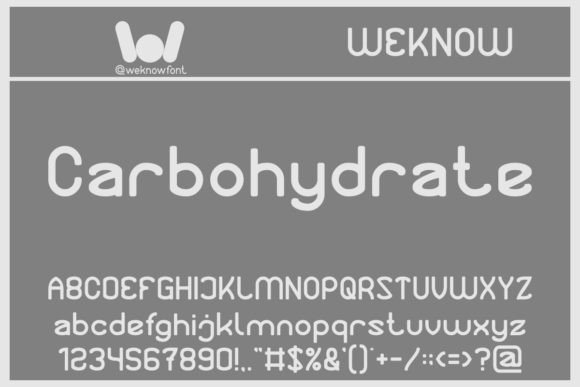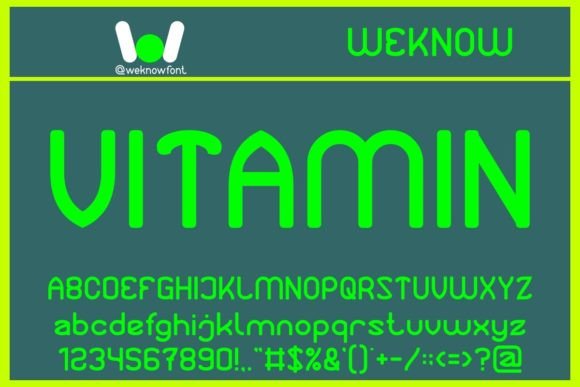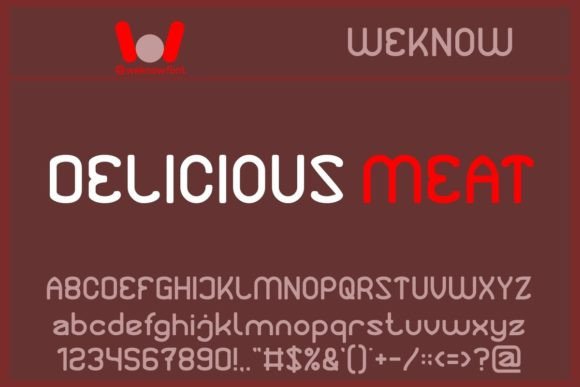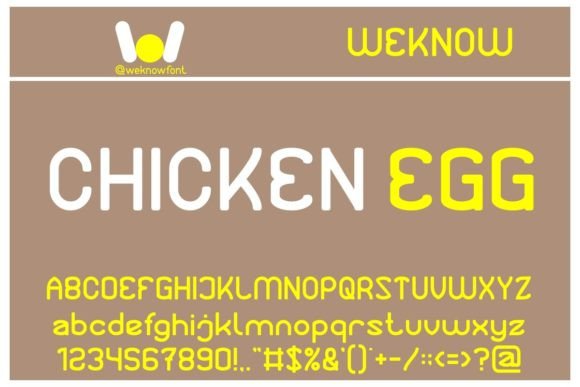
Introduction to Protein Font Font
Fonts play a crucial role in design, and the Protein Font font is a typeface that brings both character and versatility to any project. Whether you’re working on a branding project, a website, or a print design, the Protein Font font offers a unique style that can elevate your work.
Protein is a basic sans serif font suitable for a logo, logotype, headline, corporate identity, brand identity, apparel industry, poster, music, movie, game, magazine, book, comic, cartoon, YouTube, Instagram, website, or any of your creative design projects.
Protein is a basic sans serif font suitable for a logo, logotype, headline, corporate identity, brand identity, apparel industry, poster, music, movie, game, magazine, book, comic, cartoon, YouTube, I
Key Features of Protein Font Font
• ✅ High-quality typeface designed for professional use
• ✅ Includes a wide range of glyphs and characters
• ✅ Ideal for logos, branding, websites, and print
Why Choose Protein Font Font?
The Protein Font font is more than just a typeface – it’s a design tool that helps you communicate your message with style and clarity. Its unique character set and versatile design make it suitable for a wide range of applications, from elegant invitations to bold headlines.
With its carefully crafted letterforms and balanced proportions, the Protein Font font ensures readability and visual appeal across all mediums.
What makes Protein Font font special?
The Protein Font font stands out with its unique design, exceptional readability, and versatility across various design applications.